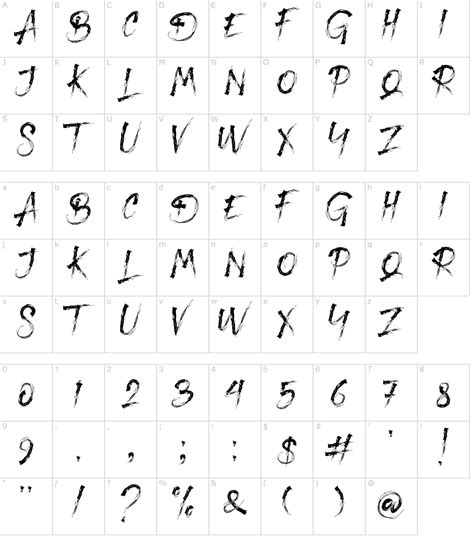
Scratch Font: The Ultimate Guide To English Fonts
Scratch Font: The Ultimate Guide to English Fonts
Hey guys! Ever wondered about the fonts used in Scratch ? Or maybe you’re looking to create projects that pop with the perfect typeface ? Well, you’ve come to the right place! Let’s dive deep into the world of Scratch fonts , specifically focusing on those fantastic English fonts that can make your projects shine.
Understanding Fonts in Scratch
Okay, so what’s the deal with fonts in Scratch anyway? Scratch , as you probably know, is a visual programming language that’s super popular for teaching kids (and adults!) how to code. It allows you to create interactive stories, games, and animations. Part of making those projects look awesome is choosing the right font . The font you select can drastically change the feel of your project, making it appear playful, serious, or futuristic, depending on your vision.
Scratch offers a limited but useful selection of built-in fonts . These are designed to be clear and readable, especially for younger users. However, this doesn’t mean you’re stuck with the basics! Understanding which fonts are available and how to use them effectively is the first step in elevating your Scratch projects. You can change fonts for text displayed in sprites, backdrops, and even in certain extensions. Experimenting with different fonts can bring a whole new level of creativity to your work. Don’t underestimate the impact of a well-chosen typeface ! It’s all about enhancing the user experience and making your project visually appealing. So, let’s explore some common English fonts you might encounter and how you can make the most of them in Scratch .
When it comes to choosing the best English fonts for your Scratch projects, you’ve got several solid options to consider. Each font brings its own unique vibe, so selecting the right one depends on the type of project you’re creating and the message you want to convey. Let’s break down some popular choices:
• Sans-Serif Fonts: These fonts are clean, modern, and highly readable. Arial and Helvetica are classic examples. They are perfect for projects where clarity is key, such as tutorials or educational games. The simplicity of sans-serif fonts makes them easy on the eyes, especially for younger users.
• Serif Fonts: Serif fonts , like Times New Roman or Georgia, have small decorative strokes at the ends of the letters. These fonts often give a more traditional or formal feel. They can work well in Scratch projects that aim for a classic or book-like aesthetic. However, be mindful that serif fonts can sometimes appear cluttered if used in small sizes.
• Script Fonts: Script fonts mimic handwriting and can add a touch of elegance or whimsy to your project. Think of fonts like Brush Script or Comic Sans (yes, even Comic Sans has its place!). Use these sparingly, as they can be harder to read, especially for beginners. But when used correctly, they can bring personality to titles or special announcements.
• Display Fonts: These are the wildcards! Display fonts are designed to be eye-catching and unique. They come in all sorts of styles, from futuristic to cartoonish. While Scratch ’s built-in options might be limited, you can often find ways to import or create similar effects using graphics. These are great for logos, titles, or any element that needs to stand out. Remember, readability is still important, so choose wisely.
By carefully considering these different types of English fonts , you can add a professional and polished look to your Scratch creations. Experiment with various options to see what best suits your project’s theme and audience. Have fun with it!
How to Change Fonts in Scratch
Changing fonts in Scratch is a pretty straightforward process, but it’s essential to know the steps to make your text look exactly how you want it. Scratch provides a few built-in fonts , and while you can’t directly import custom fonts into the platform, there are creative workarounds we’ll discuss later. For now, let’s focus on how to change the font using Scratch ’s native options:
1. Select a Sprite or Backdrop: First, you need to choose the sprite or backdrop that contains the text you want to modify. Click on the sprite in the sprite list or select the backdrop in the stage area.
2. Go to the Code Tab: Once you’ve selected your sprite or backdrop, click on the “Code” tab in the Scratch editor. This is where you’ll write the scripts that control your project.
3. Use the “Looks” Blocks: The key to changing fonts lies within the “Looks” category of blocks. Look for blocks like “say [text] for [seconds]” or “think [text] for [seconds].” These blocks display text on the screen.
4. Access Font Options: Here’s the catch: Scratch doesn’t have a direct “change font ” block. Instead, the font is determined by the text you input and the overall style of your project. However, you can influence the appearance by using different text effects and sizes.
5. Utilize Text Effects: While you can’t change the font directly, you can use effects like bolding, italics, or color changes in your text input to make it stand out. You can also use multiple text blocks to create different sections with varying styles.
Whether you’re creating educational games, interactive stories, or animated shorts, take the time to carefully consider your font choices. Experiment with different styles, prioritize readability , and don’t be afraid to get creative with custom fonts . By mastering the art of font selection, you can make your Scratch projects stand out and captivate your audience. Now go out there and make some awesome stuff!